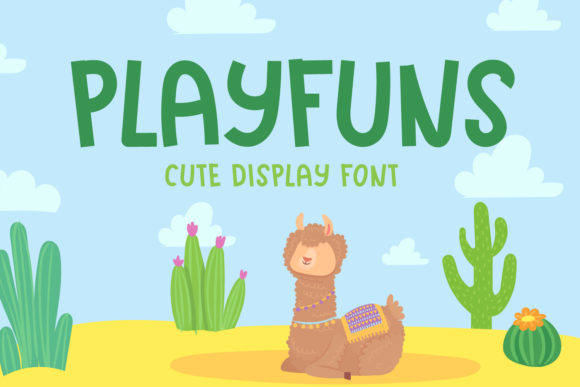
Journey into the world of Playfuns Font, a delightful display font that captivates the essence of joy and imagination. Designed by the talented OKEVECTOR, this font is a masterpiece that will add a touch of charm and personality to your creative projects. Let your words dance across the page with Playfuns Font, the ultimate choice for kids' books, children's games, and any creation that seeks a playful and endearing vibe.
Playfuns Font is not just a font; it's an invitation to embark on an adventure of creativity. Its playful curves and whimsical strokes evoke a sense of wonder and excitement, making it the perfect companion for stories that spark imagination. Dive into the world of Playfuns Font and let your creativity soar.
With Playfuns Font, you'll not only create visually appealing designs but also forge an emotional connection with your audience, especially the young ones. Its cheerful and lighthearted appearance resonates with children's natural curiosity and love for play. Whether it's a captivating children's book, an enchanting game, or a vibrant poster, Playfuns Font breathes life into your creations.
So, if you're seeking a font that ignites imagination, sparks joy, and captivates hearts, look no further than Playfuns Font. Its unique and enchanting style will transform your creative endeavors into unforgettable experiences, leaving a lasting impression on all who encounter it. Embrace the magic of Playfuns Font and let your imagination run wild.